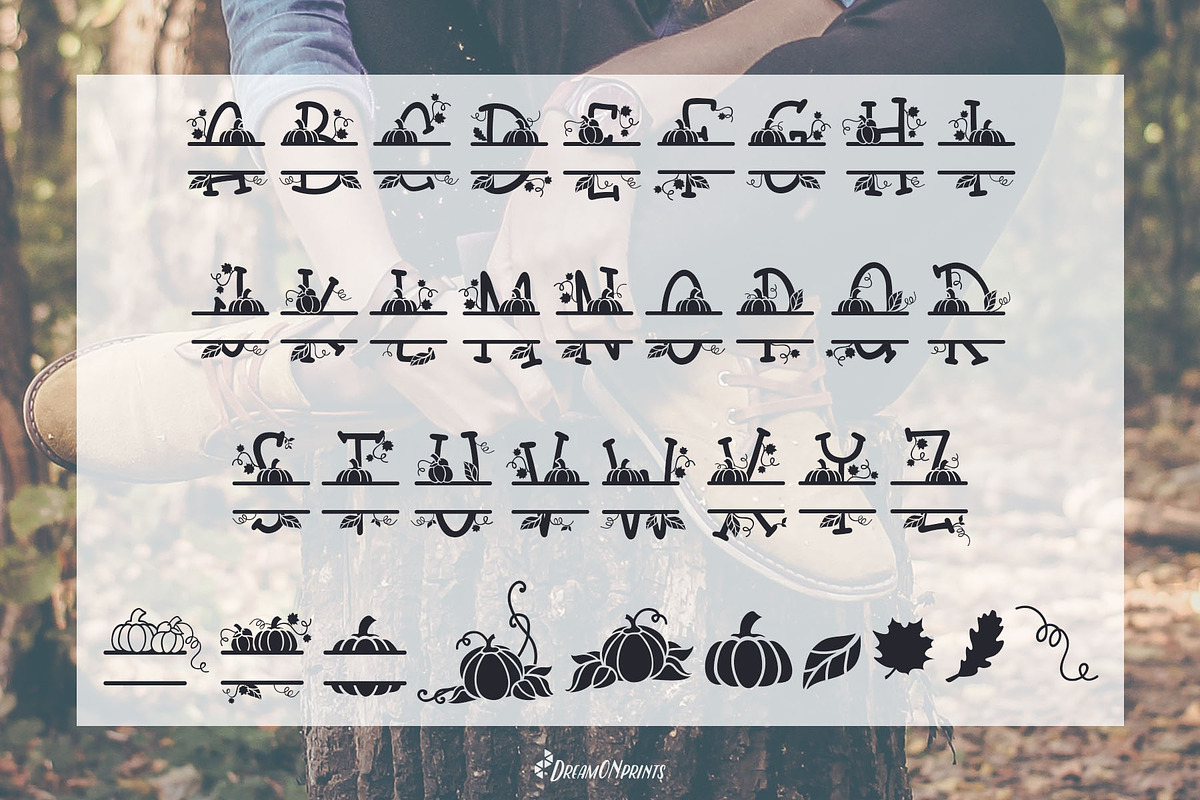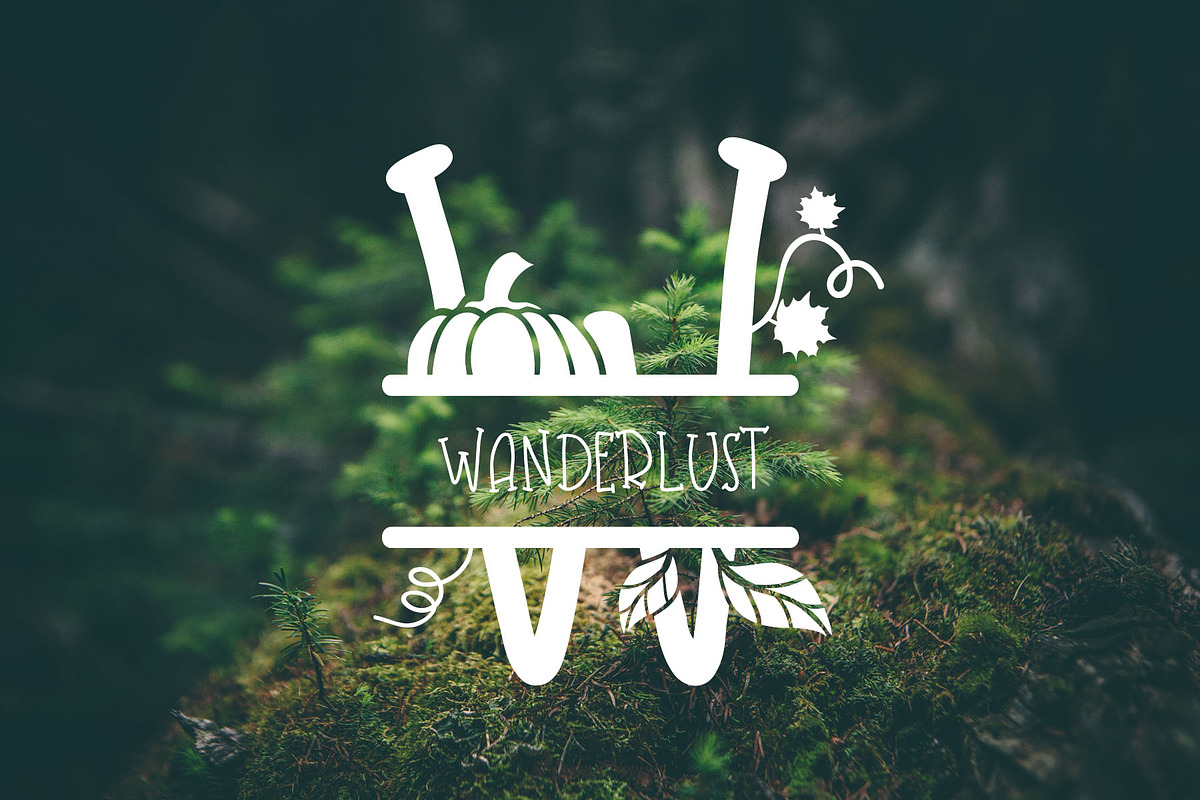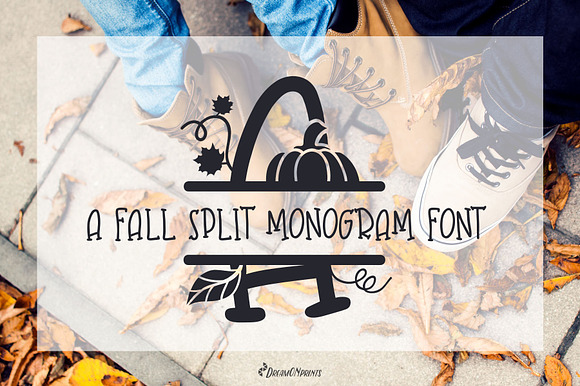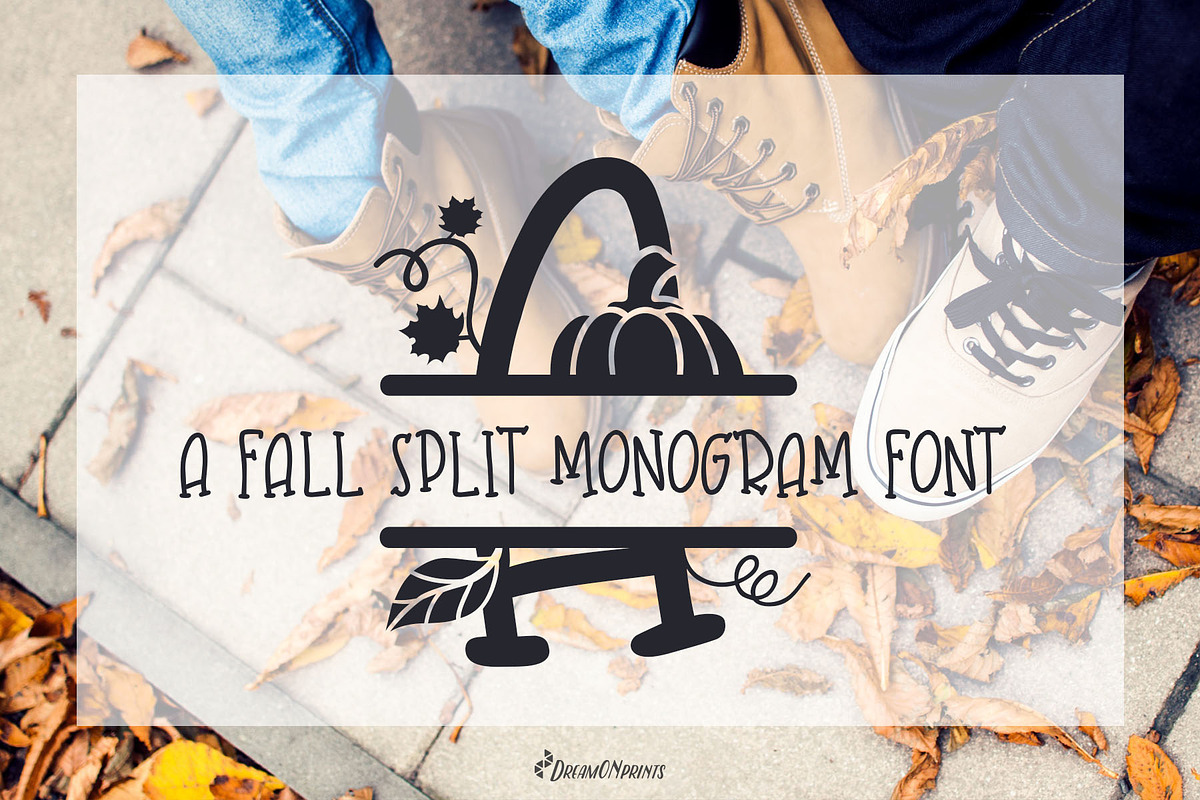
Fall Leaves - Split Monogram Font
"Fall Leaves" - an autumn split monogram font.
It is perfect for craft project and cutting machines too.
Fall Leaves - Split Monogram Font by DreamONprints fits naturally into Branding, posters, packaging, typography.